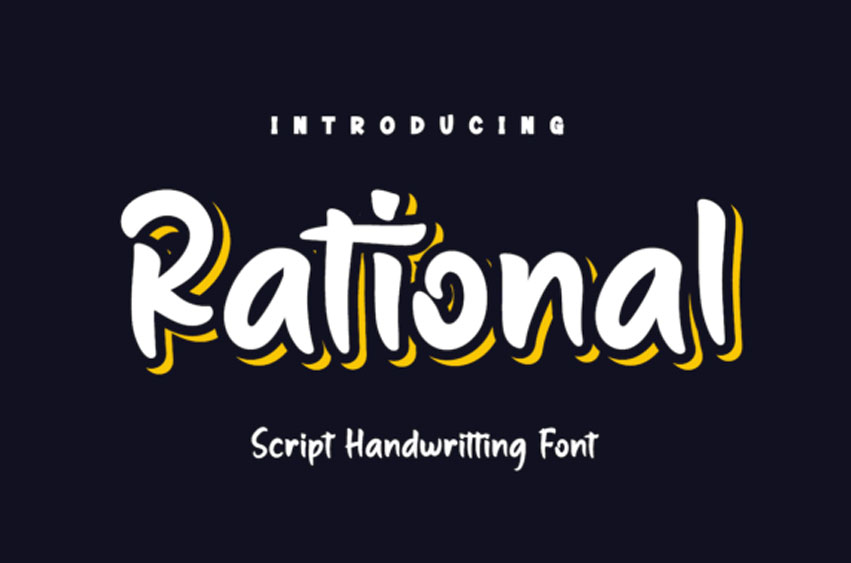
Rational Script Font
Rational Script Font is a cool and stylish paint brushed handwritten font.
Whether you’re using it for crafting, digital designing, presentations or greeting cards making, it’s perfect!